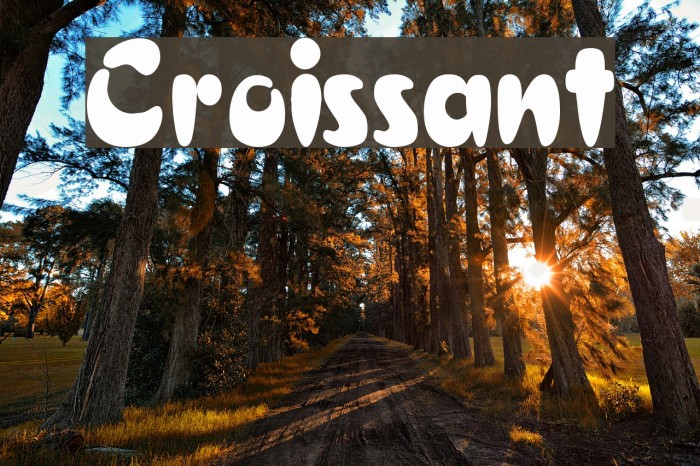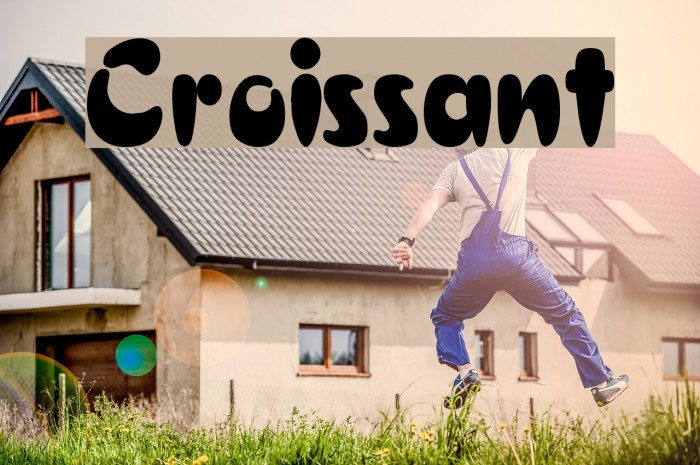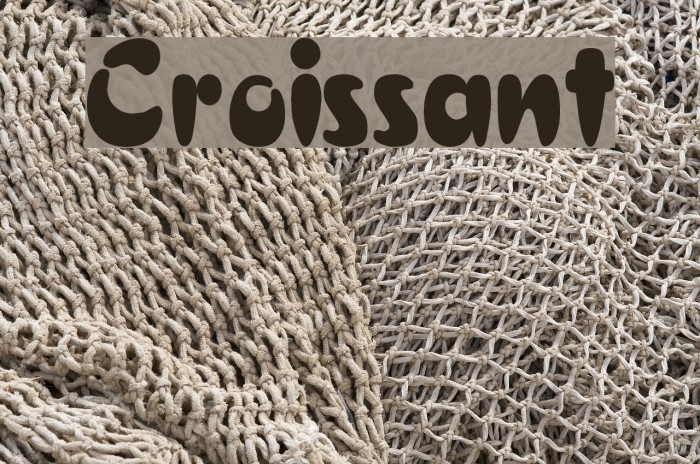
Croissant Font
Croissant Description
This playful and bold font features thick, rounded characters that exude a sense of fun and whimsy. The letters have a unique, bubbly appearance with exaggerated curves and a slightly irregular form, giving them a hand-drawn feel. The font maintains a consistent stroke weight throughout, contributing to its bold and impactful presence. Its playful nature makes it ideal for projects that aim to convey a sense of joy and creativity. The characters are well-spaced, ensuring readability while maintaining their distinctive style. This font is perfect for designs that require a touch of personality and flair.
| Overall Style | Playful, Whimsical |
| Proposed Projects | Ideal for children's books, playful branding, party invitations, and creative posters. |